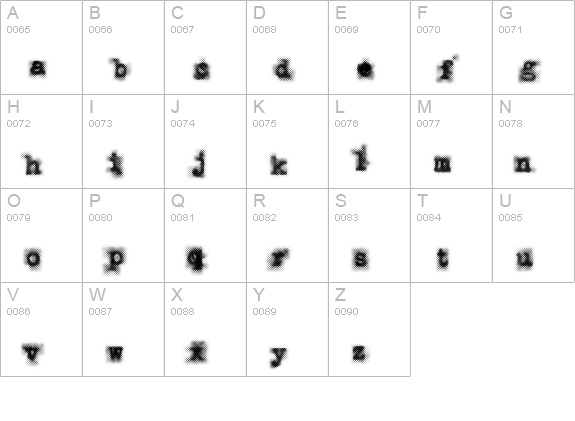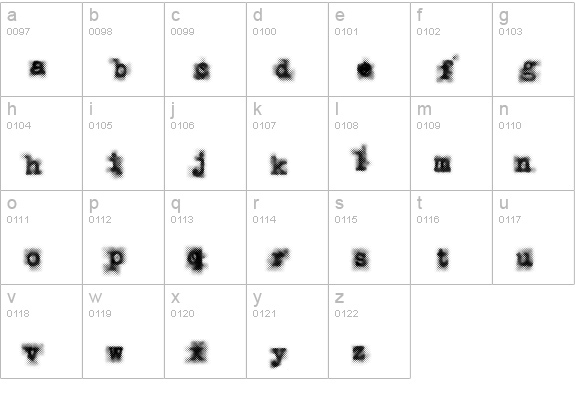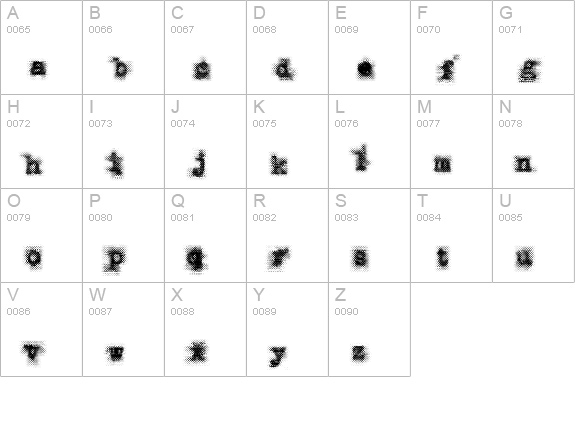
Introducing PUNKBABE, a rebellious and edgy font that will bring a punk rock vibe to your design projects. With its bold and jagged letterforms, this font exudes a sense of rebellious energy that is perfect for capturing attention and making a statement. Whether you're designing album covers, posters, or creating a unique logo, PUNKBABE will add a touch of punk attitude to your work. But what makes PUNKBABE even more enticing is that it is completely free! That's right, this font is freely available to download at FontsMarket.com. We believe that creativity should not be limited by cost, and that's why we are offering PUNKBABE as a free resource for designers, artists, and anyone looking to add a punk-inspired touch to their projects. This font is not just about style, it also offers versatility. PUNKBABE comes in a variety of weights and styles, allowing you to experiment with different looks and create designs that truly reflect your unique vision. From bold and in-your-face to grungy and distressed, PUNKBABE has all the elements you need to unleash your creativity and push the boundaries of design. So don't wait any longer, download PUNKBABE today from FontsMarket.com and let this font become your go-to choice for all things punk. Whether you're a seasoned designer or just starting out, PUNKBABE will help you make a bold statement and leave a lasting impression. Get ready to rock your designs with PUNKBABE and let your creativity run wild!